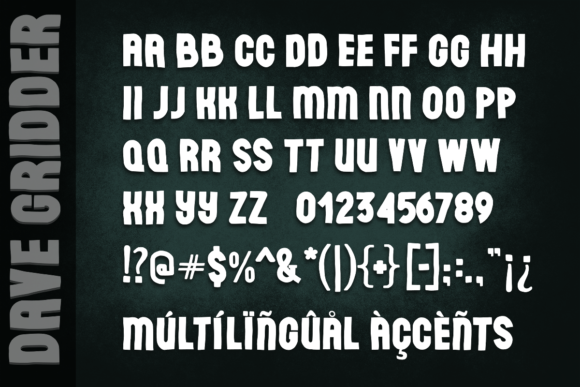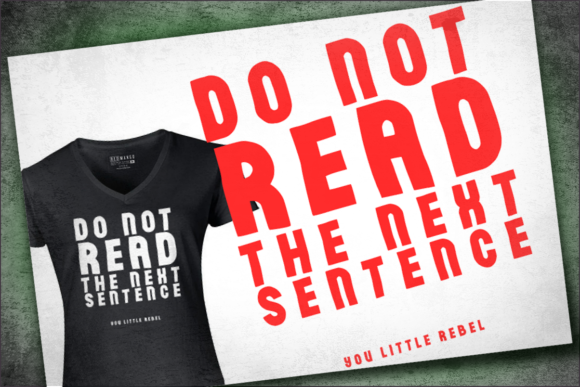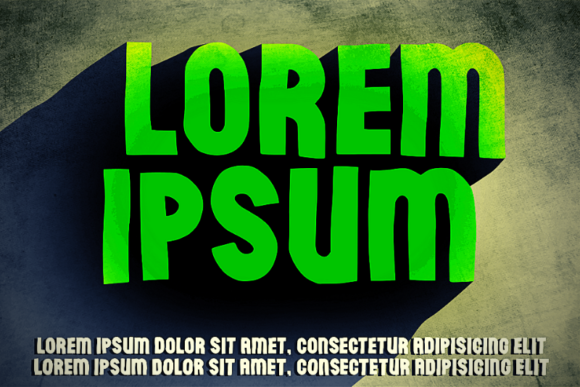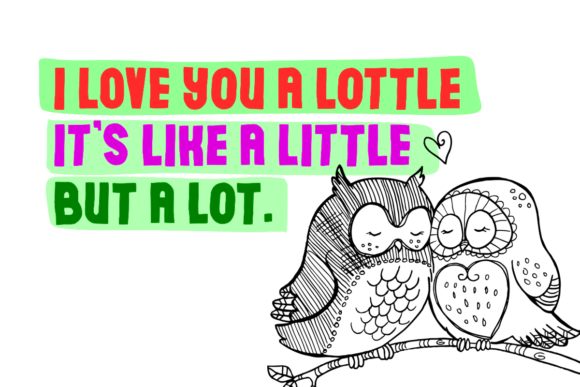
Introducing Dave Gridder Font: A Strong Display Font for Stunning Headlines
In the world of typography, a good font can make all the difference in creating visually appealing designs. For designers and crafters looking for a strong display font that can elevate their work, Dave Gridder Font is an excellent choice. This fantastic font is best suited for headlines of all sizes, as well as for blocks of text that have both maximum and minimum variations. Whether it’s for web, print, moving images, or anything else – Dave Gridder will look spectacular.
What Makes Dave Gridder Font Stand Out?
So, what sets Dave Gridder Font apart from other fonts? Here are a few key features that make it a standout:
- Strong and Bold: Dave Gridder Font is a strong display font that commands attention. Its bold and sturdy design makes it perfect for headlines, titles, and other display text.
- Versatile: This font is incredibly versatile and can be used for a wide range of design projects, from web design and print materials to moving images and more.
- Highly Legible: Despite its bold design, Dave Gridder Font is highly legible, even at smaller sizes. This makes it perfect for blocks of text that need to be easy to read.
Uses for Dave Gridder Font
Dave Gridder Font is a versatile font that can be used in a variety of design projects. Here are some ideas to get you started:
- Headlines and Titles: Use Dave Gridder Font to create eye-catching headlines and titles for your designs. Its strong and bold design makes it perfect for grabbing attention.
- Web Design: Add a touch of professionalism to your website with Dave Gridder Font. Its clean and modern design makes it perfect for web headers, titles, and other display text.
- Print Materials: Use Dave Gridder Font to create stunning print materials, such as brochures, posters, and business cards. Its bold design makes it perfect for grabbing attention.
- Moving Images: Dave Gridder Font is also perfect for moving images, such as video titles, subtitles, and other display text.
Tips for Using Dave Gridder Font
Here are a few tips for getting the most out of Dave Gridder Font:
- Experiment with Sizes: Don’t be afraid to experiment with different sizes of Dave Gridder Font. Its bold design makes it perfect for headlines, but it can also be used for smaller text.
- Pair with Other Fonts: Dave Gridder Font pairs well with a variety of other fonts. Try pairing it with a clean sans-serif font for a modern look.
- Use for Contrast: Use Dave Gridder Font to create contrast in your designs. Its bold design makes it perfect for creating visual interest.
In conclusion, Dave Gridder Font is a strong display font that is perfect for designers and crafters looking to elevate their work. Its bold and versatile design makes it perfect for a wide range of design projects, from web design and print materials to moving images and more. With its highly legible design and ability to be used in a variety of sizes, Dave Gridder Font is a great addition to any designer’s toolkit.
Overall, Dave Gridder Font is a great choice for designers and crafters looking for a strong display font that can elevate their work. Its versatility, legibility, and bold design make it perfect for a wide range of design projects.